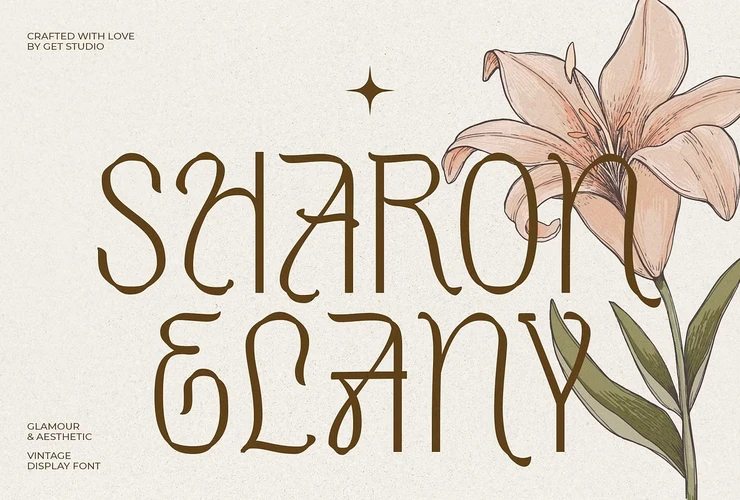
Add a Touch of Nostalgia with Sharon Elany Font
Sharon Elany is a beautifully crafted display font that perfectly blends modern aesthetics with vintage charm. Characterized by its smooth, ribbon-like curves, this font brings a refined elegance to any design project, making it ideal for those who want to add a touch of sophistication and nostalgia to their work.
Why Sharon Elany is a Must-Have for Designers
Sharon Elany is more than just a font; it’s a statement piece that enhances the visual appeal of your designs. Whether you’re working on branding, invitations, or any creative project that calls for a vintage touch, Sharon Elany offers versatility and a unique style that stands out.
Key Features of Sharon Elany
Modern Vintage Aesthetic: Sharon Elany combines contemporary design elements with a vintage feel, making it perfect for projects that need a timeless yet stylish look.
Smooth, Ribbon-Like Curves: The font’s elegant curves add a soft, flowing quality to your text, evoking a sense of grace and nostalgia.
Versatile Alternate Characters and Ligatures: With a variety of alternate characters and ligatures, Sharon Elany offers endless creative possibilities, allowing you to customize your designs to perfection.
Perfect for Elegant Designs: Sharon Elany is ideal for creating sophisticated invitations, branding materials, posters, and more. Its vintage charm adds a unique and refined touch to any project.
Ideal for:
Branding and Logos: Create memorable and elegant logos that leave a lasting impression.
Invitations and Greeting Cards: Add a vintage, sophisticated feel to invitations and greeting cards with Sharon Elany’s unique character.
Posters and Print Media: Enhance the aesthetic appeal of posters and print media with the font’s smooth curves and classic style.
Creative Projects: From digital designs to handcrafted projects, Sharon Elany’s versatility ensures it fits seamlessly into a wide range of applications.
If you’re looking to infuse your designs with a modern vintage aesthetic, Sharon Elany is the perfect choice. Its smooth, ribbon-like curves and versatile alternates make it an essential tool for any designer aiming to create elegant, timeless work. Download Sharon Elany today and start transforming your designs with its nostalgic charm.